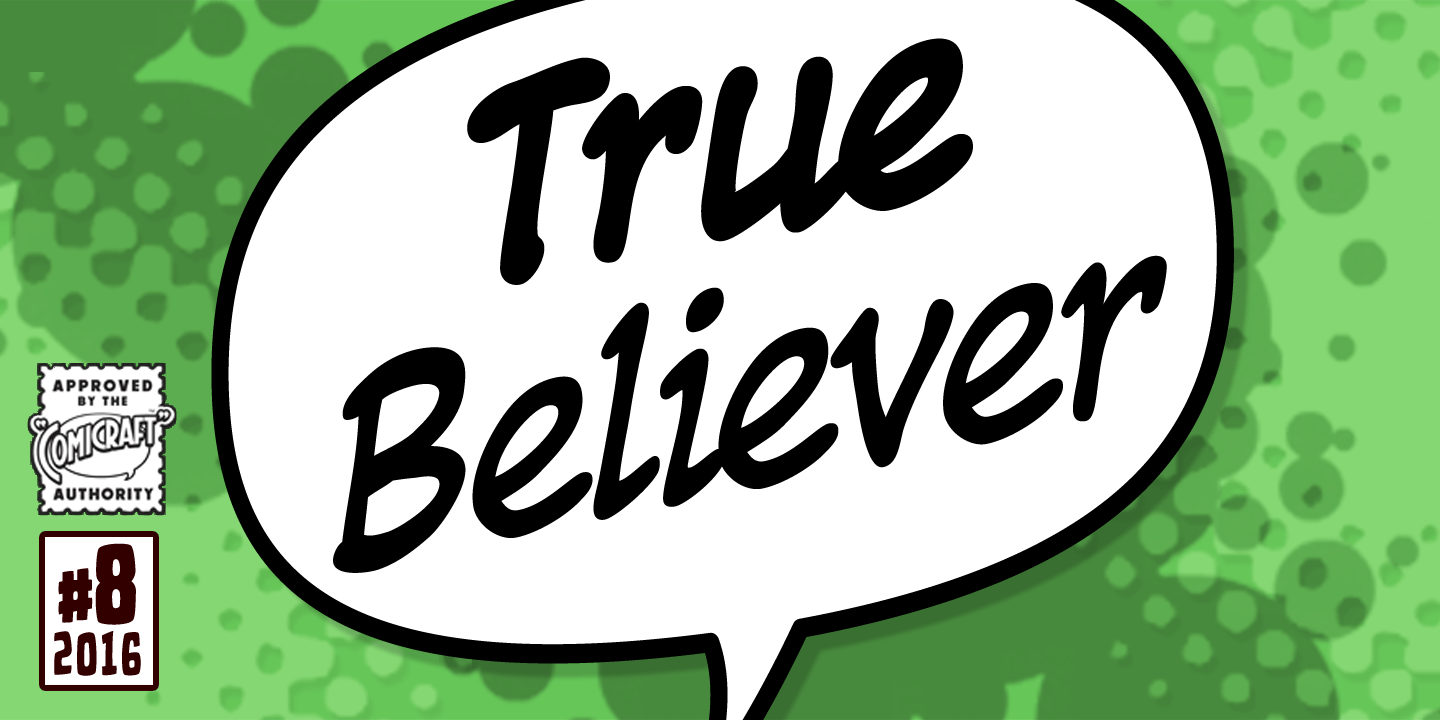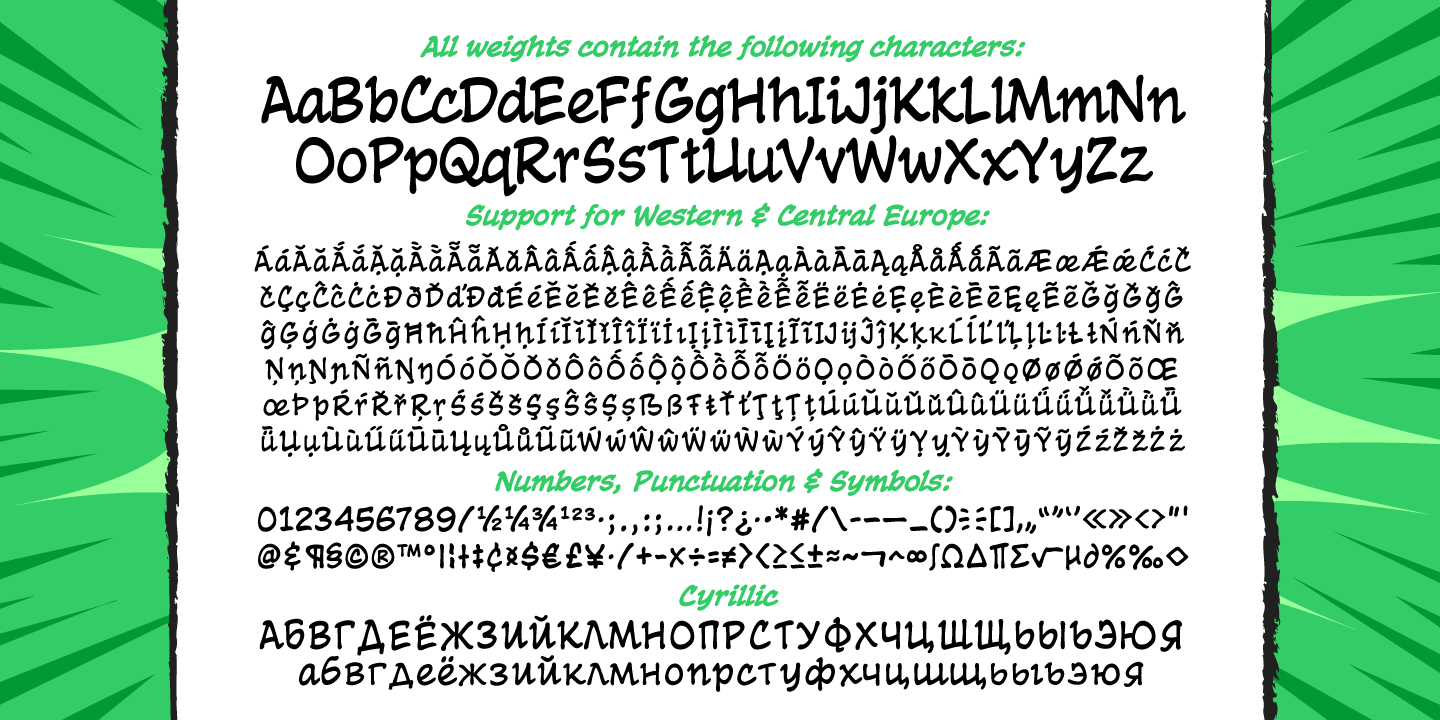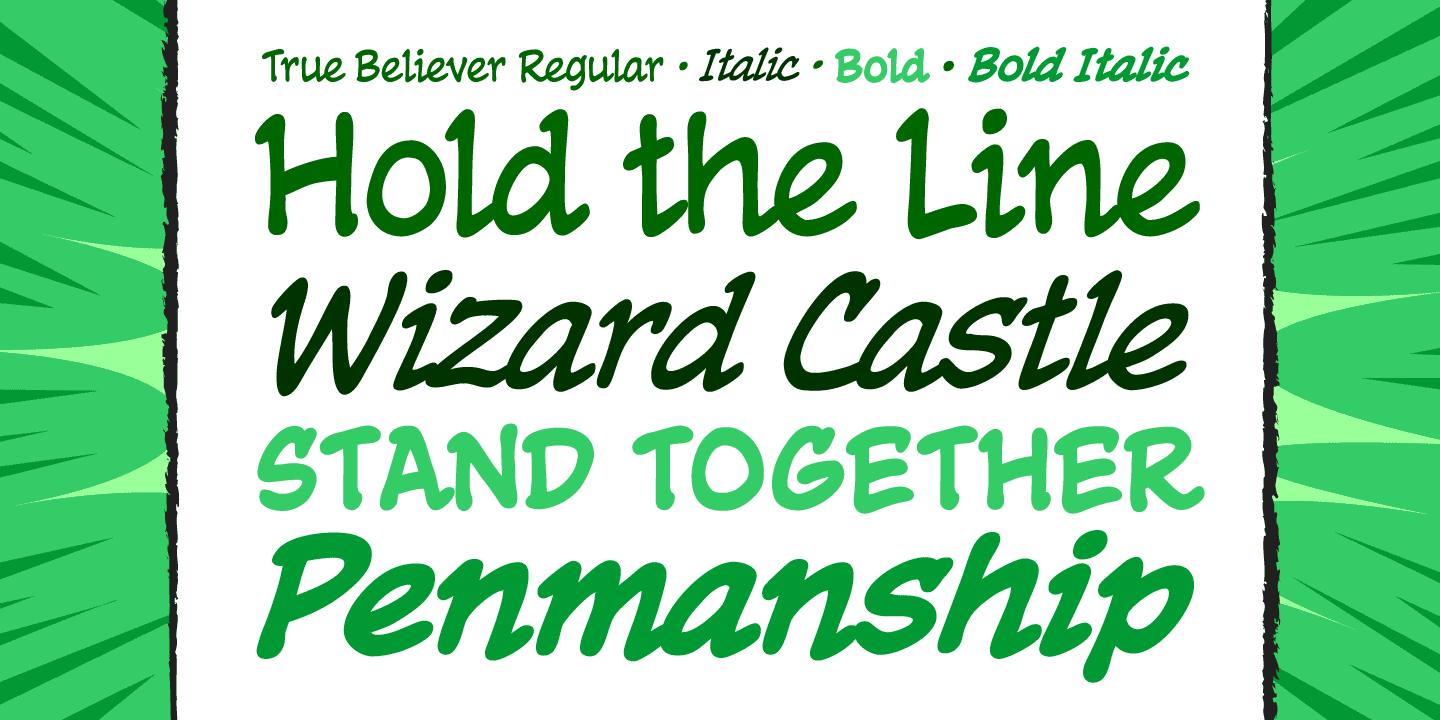
True Believer
Font Family by Comicraft Fonts
Hold the line, True Believer! Stand together. Stick up for the vulnerable. Challenge bullies. Don't let the forces of evil reign supreme. Expelliarmus!
A worthy companion to our Balloon Lettering family FACE FRONT, TRUE BELIEVER is a scripty serif handwriting font for wizards everywhere.